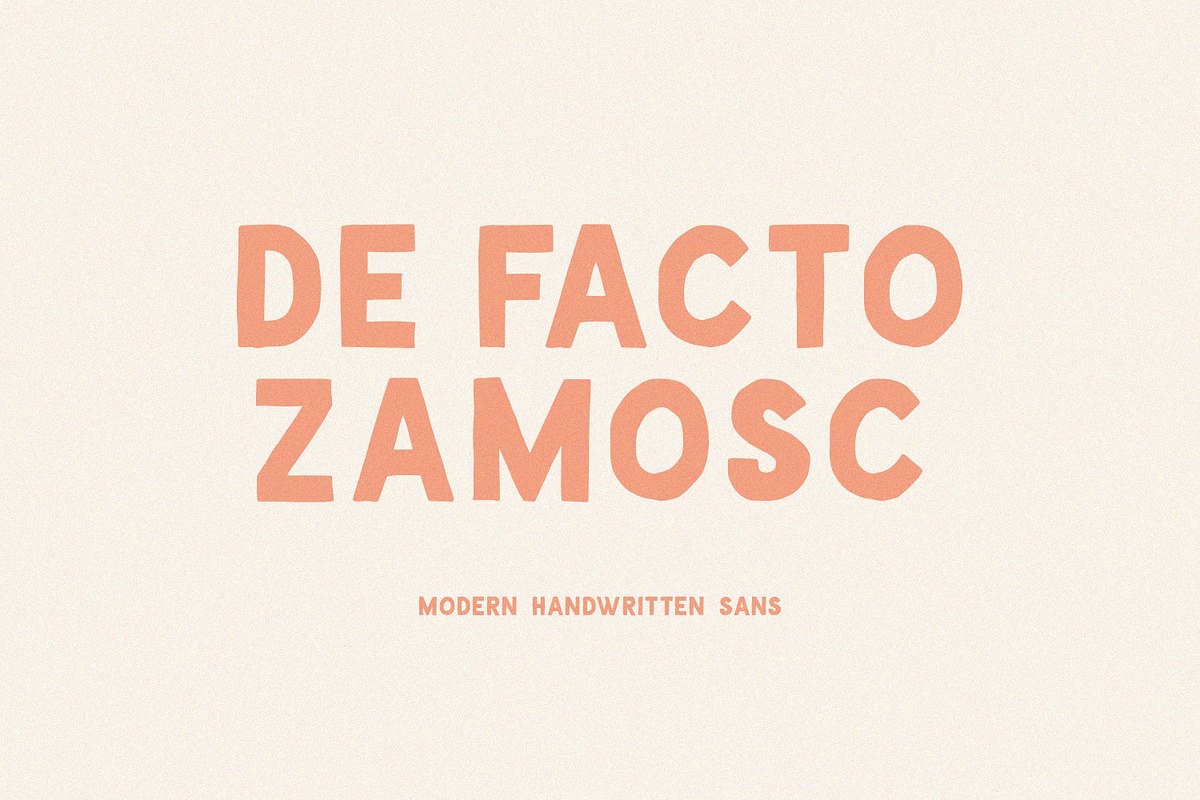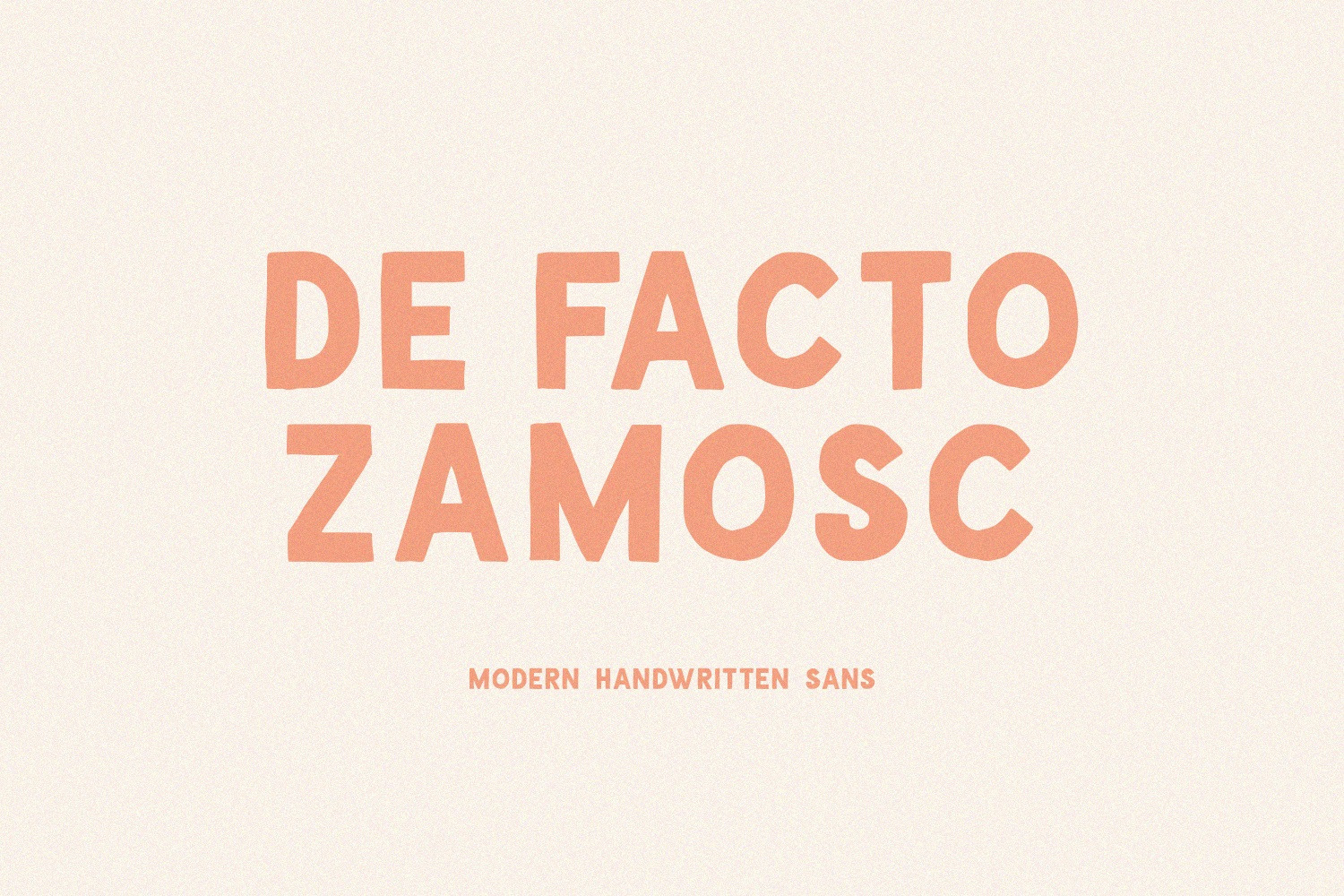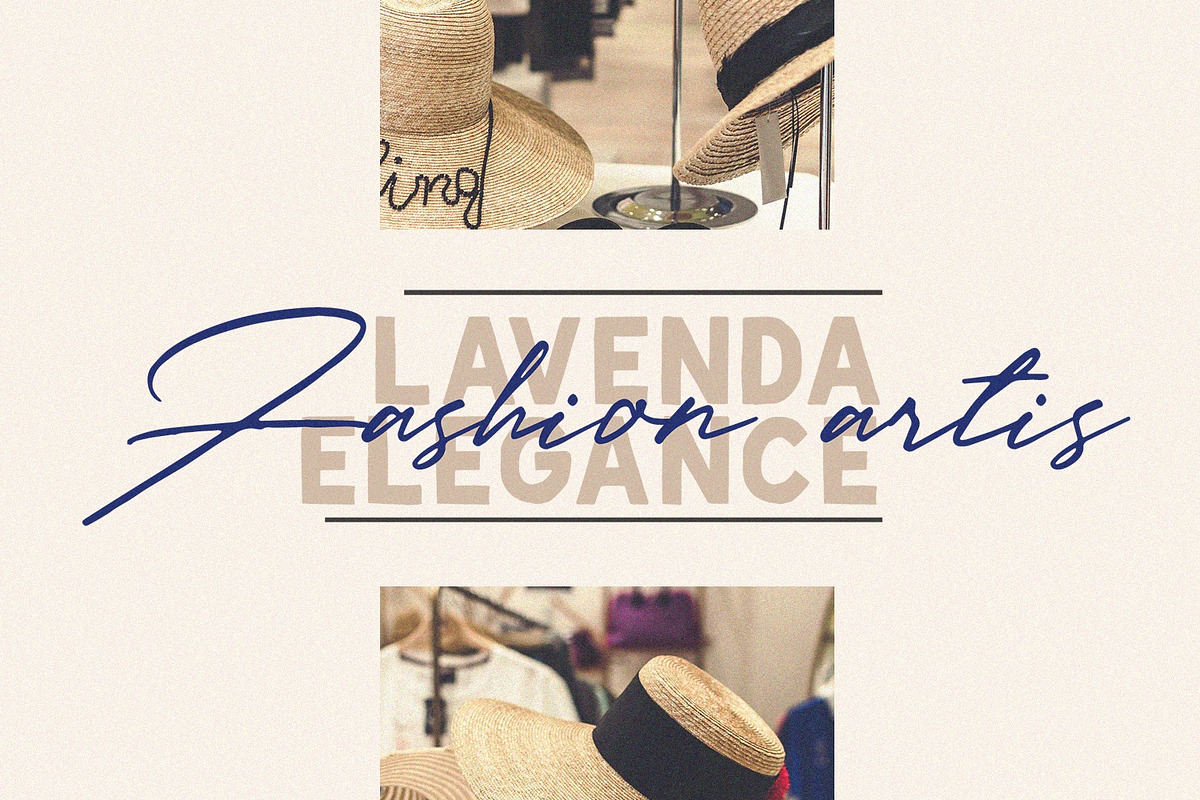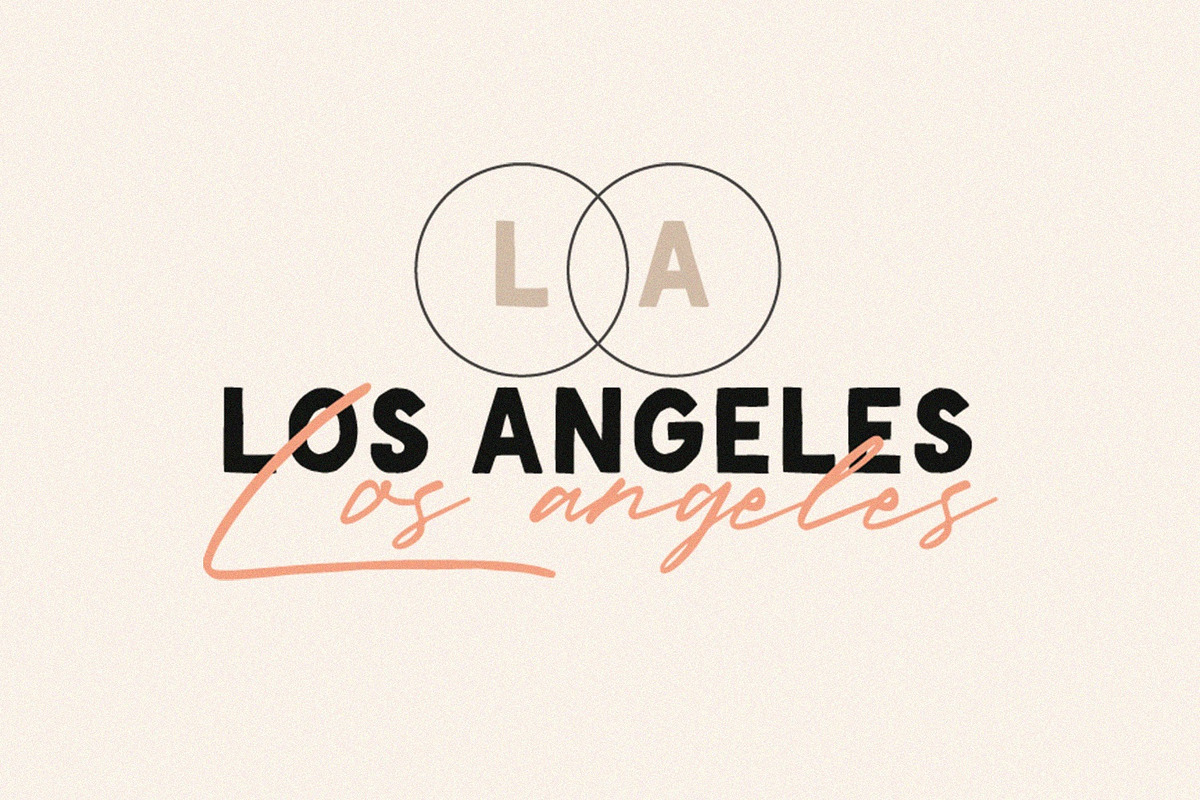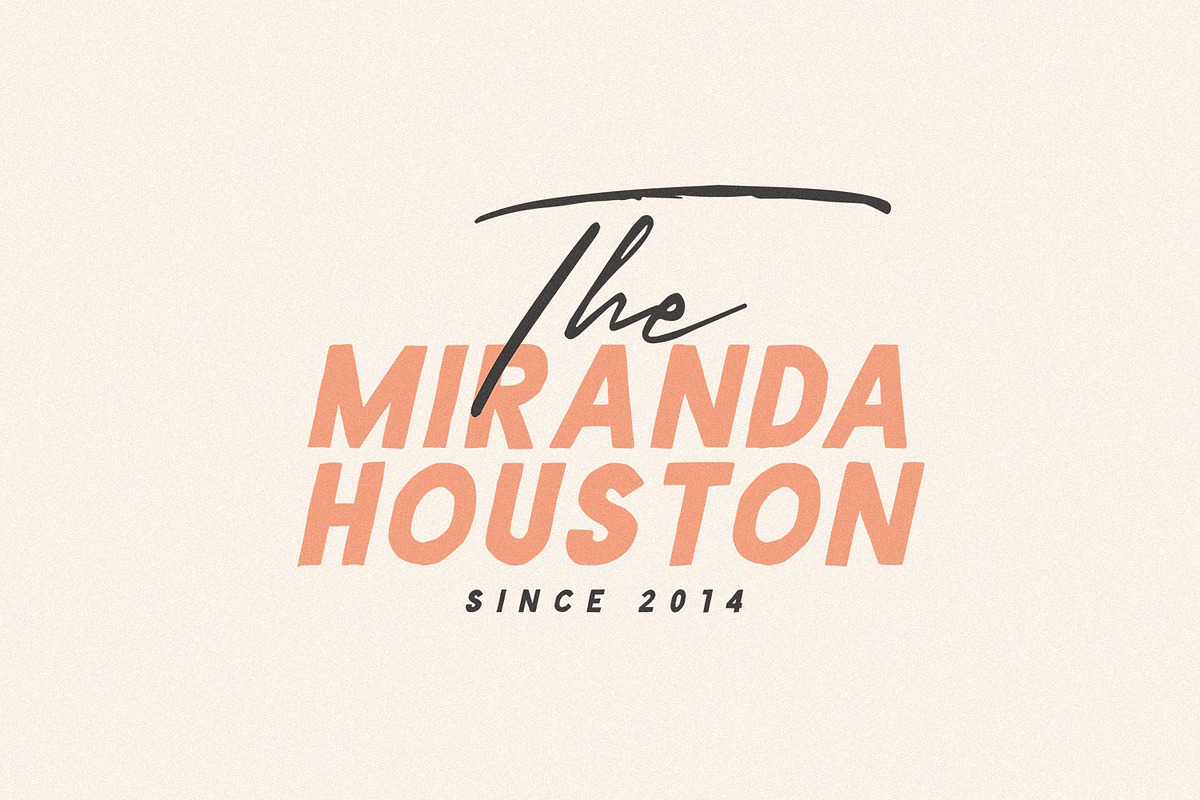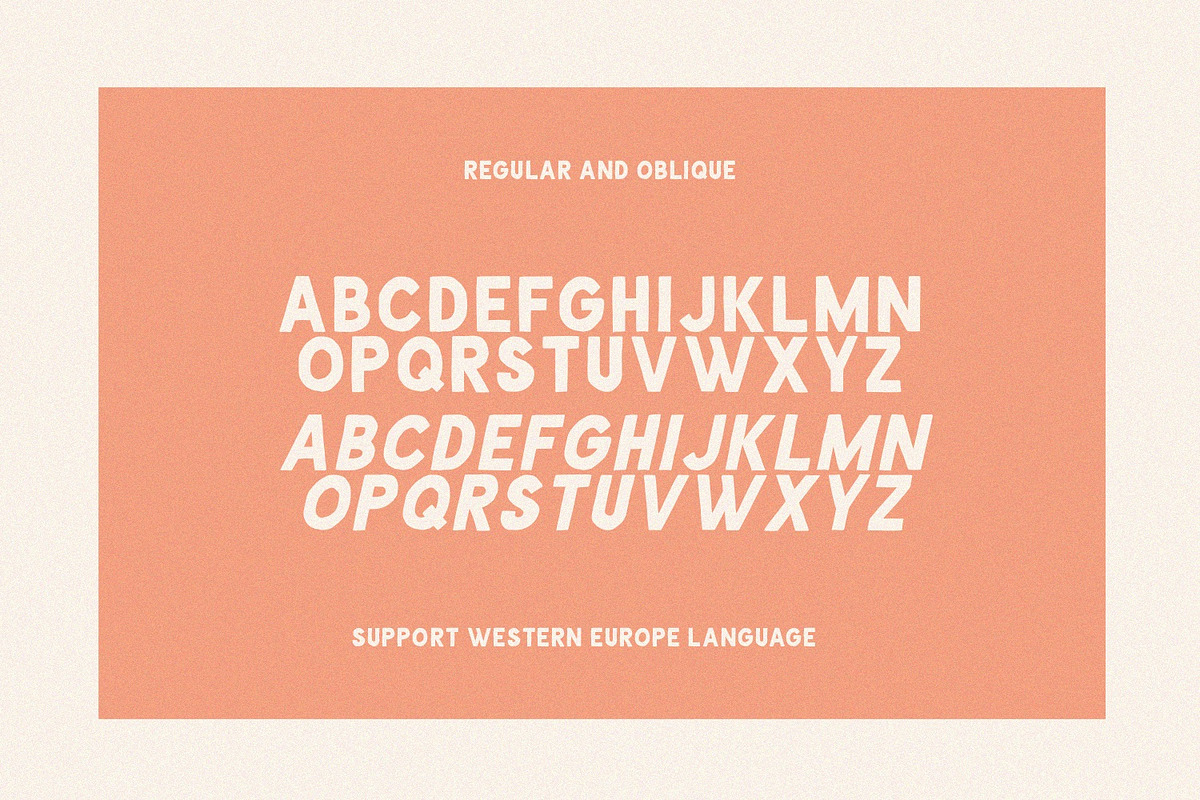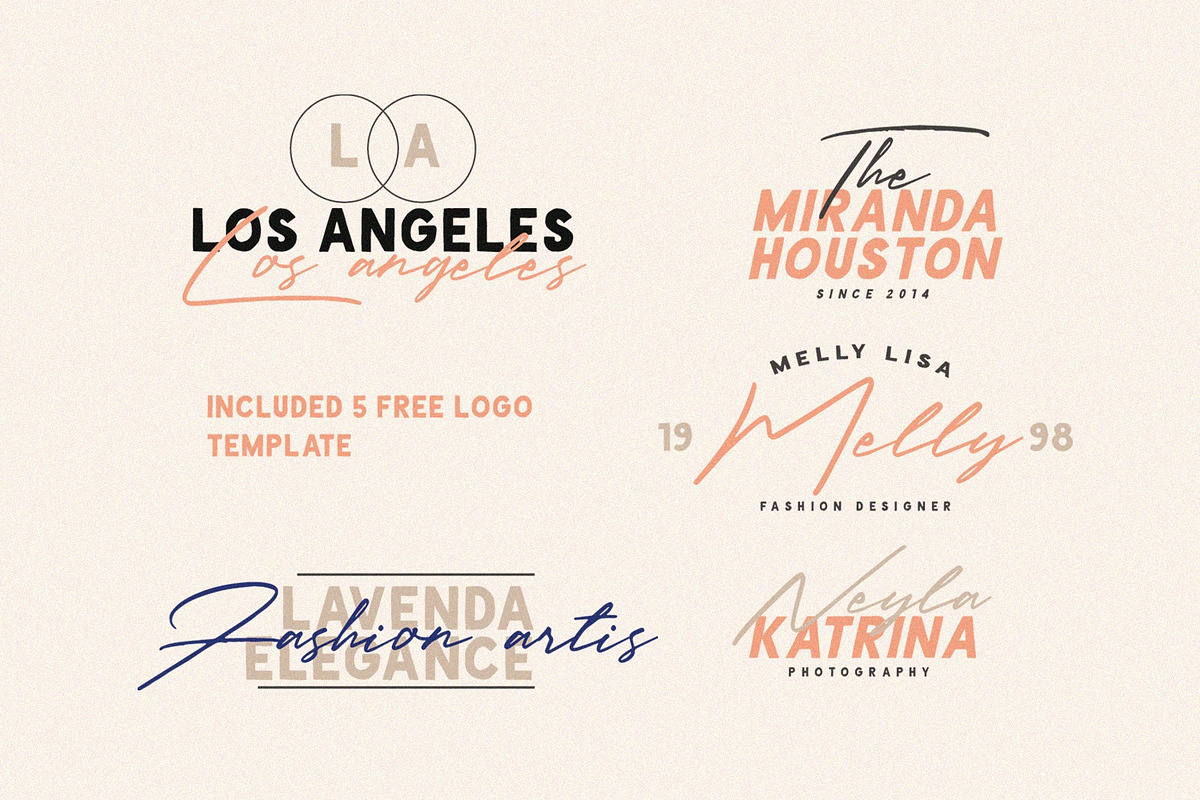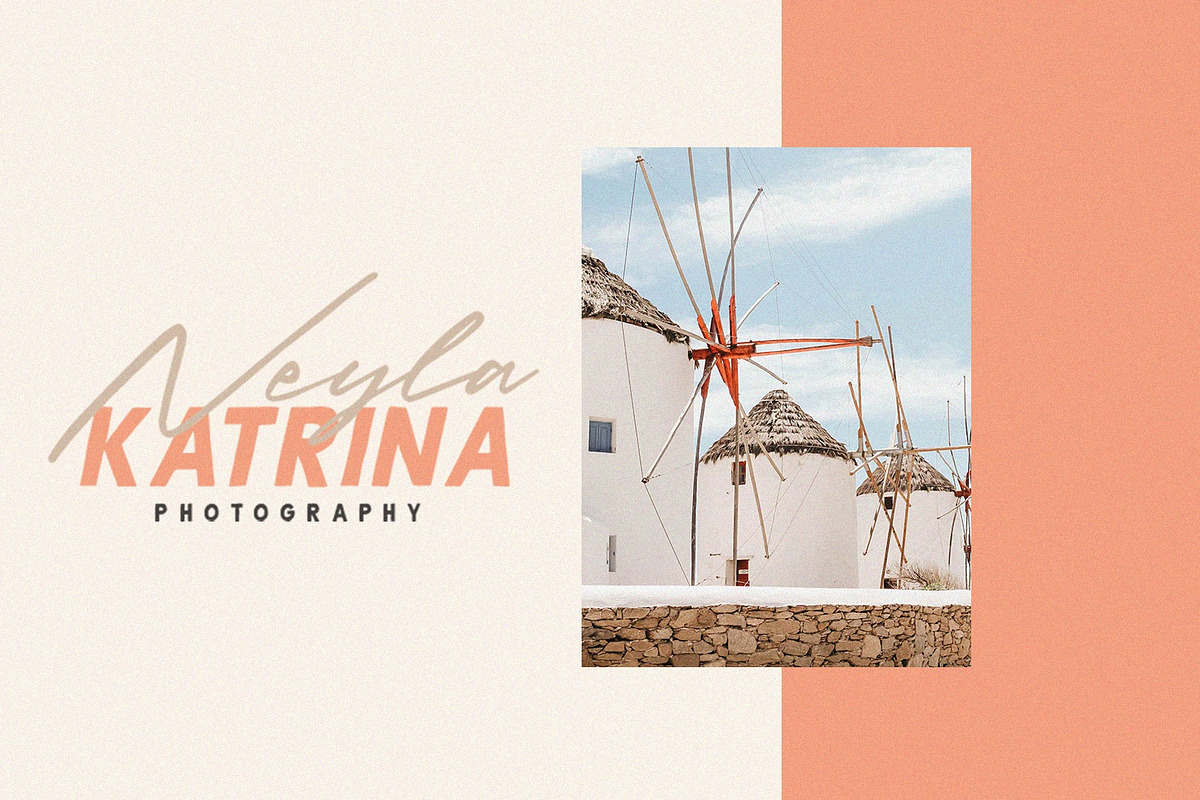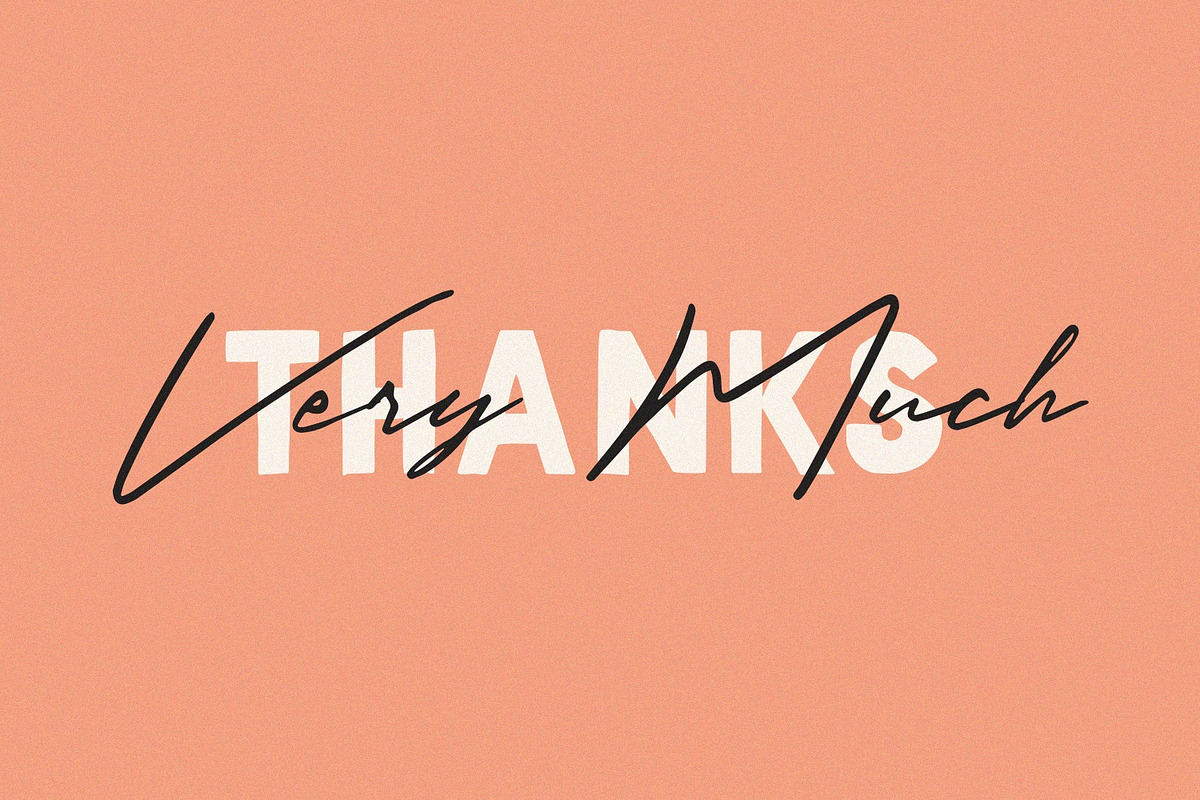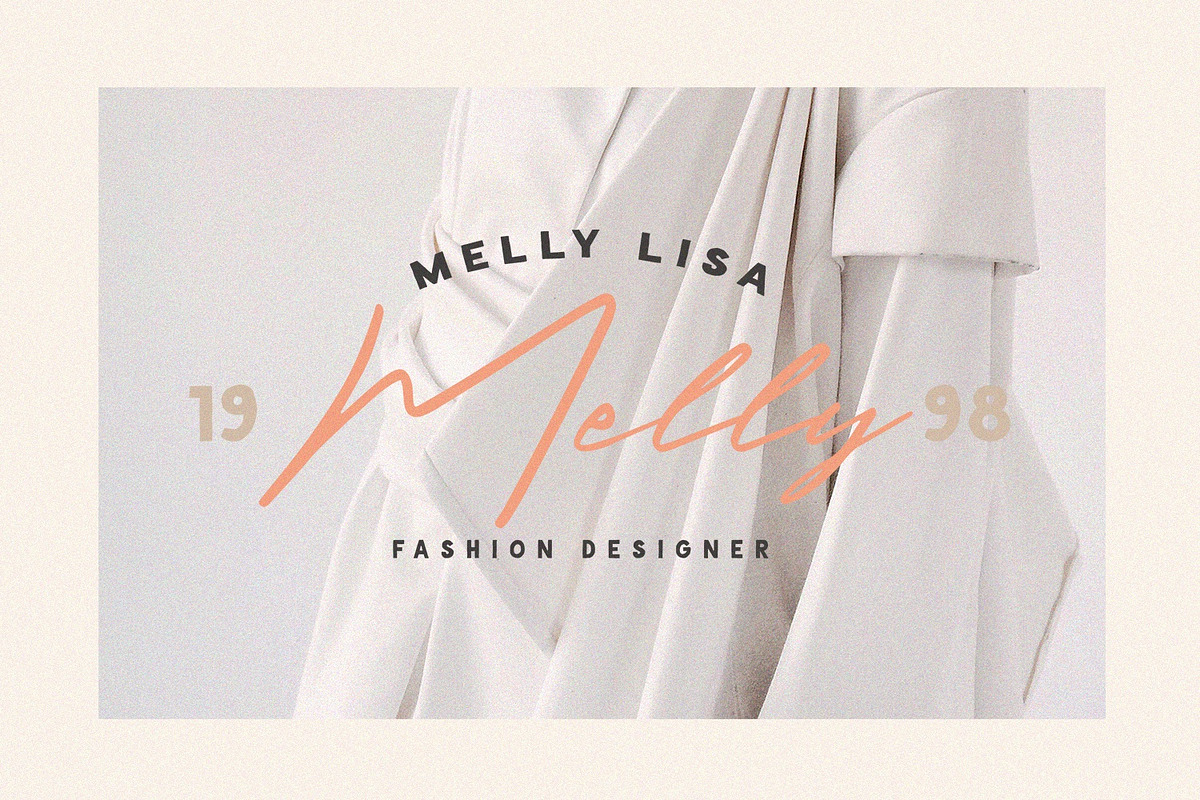
De Facto Zamosc + Free Font & Logos
De Facto Zamosc is a sans font that we made by hand. This font is very beautiful, especially if combined with a script font. But, don't worry, because we provide script fonts that are suitable for de facto fonts. And this is free without any additional costs.
De Facto Zamosc Type Features:
- Suitable for Headlines, Logotypes, Signs, Posters, Letterhead, T-Shirt and many more.
- Support Multilingual Language for western europe